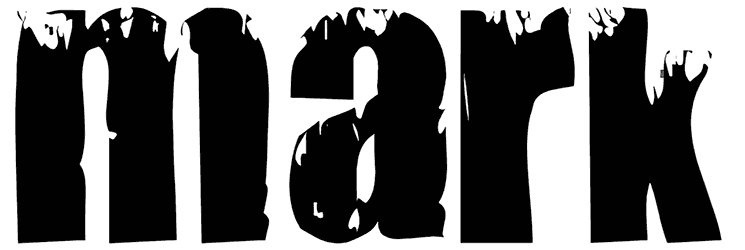
Mark Font
Mark is one of the horror fonts that has managed to maintain its position despite the continuous flow of new letters. So, to pay tribute to the classic style, use this horror when you do not need capital letters and numbers.
The snow spots sitting on each letter create a feeling of coldness that sends shivers down every viewer’s body. So if you need a destroyed font that will shine in both winter and crime posters, accept this RB’s suggestion.